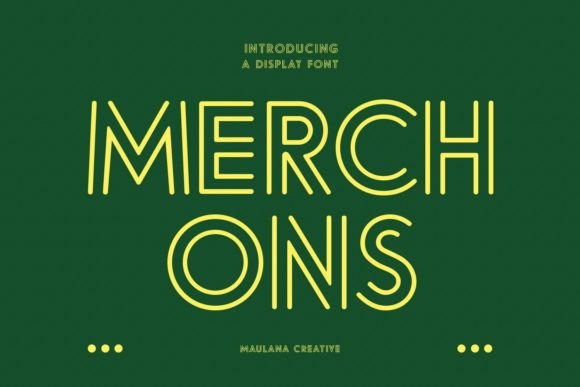
Embrace the elegance and creativity of Merchons Font, a captivating display sans serif font that will make your designs shine. Its unique two-line soft stroke and playful characters, along with a touch of ligature and alternates, create a视觉盛宴that will grab attention and leave a lasting impression.
Dive into the world of Merchons and explore its versatility. From logo design to social media posts, movie titles to book covers, Merchons is your perfect companion. Its adaptability extends to both short and long text letters, making it an excellent choice for any project that demands sophistication and style.
Merchons is not just a font; it's an experience. Its ability to seamlessly blend with sans or serif fonts makes it the ideal secondary text font, adding depth and character to your designs. Create stunning work that reflects your unique style and vision with Merchons.